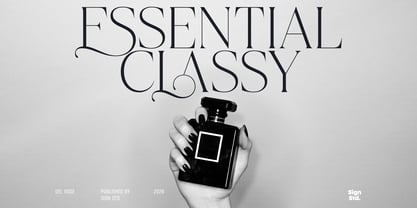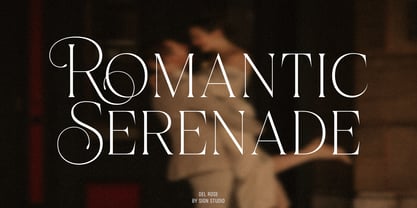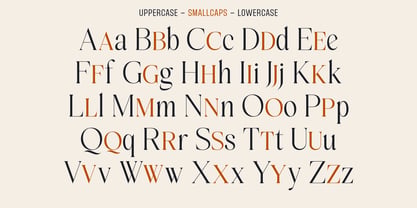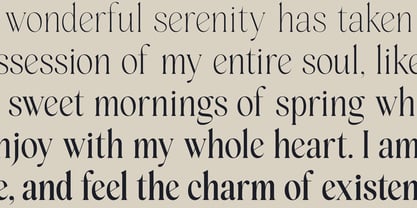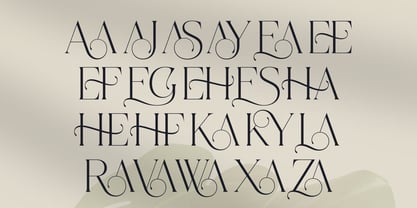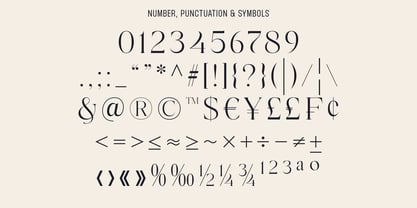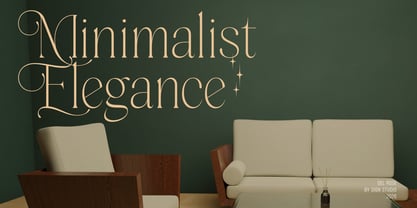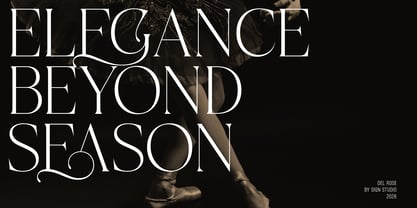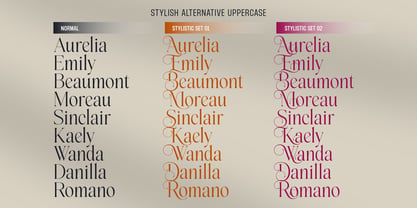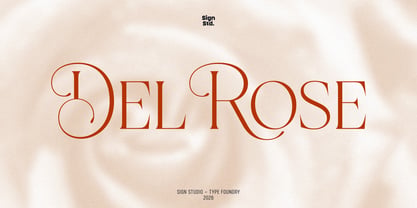
Del Rose
The Del Rose Font Family was designed by Sugi Yanto and published by Sign Studio. Del Rose contains 5 styles and family package options. More about this family
Del Rose is a refined modern serif that blends timeless elegance with expressive discretionary ligatures. Designed with graceful high-contrast letterforms and delicate ornamental details, it brings a sophisticated presence to every composition. The carefully crafted swashes add a distinctive charm while maintaining exceptional readability and balance.
Featuring five weights from Light to Bold, along with Small Caps (smcp & c2sc) and Discretionary Ligatures (dlig), Del Rose offers the versatility needed for luxury branding, editorial design, beauty packaging, wedding invitations, fashion campaigns, and premium logo design. Whether used in striking headlines or refined typography systems, Del Rose delivers a graceful and memorable visual identity.
5 Weights: Light – Regular – Medium – Semi Bold – Bold
Uppercase & Lowercase
Small Caps (smcp)
Caps to Small Caps (c2sc)
Discretionary Ligatures (dlig)
Numerals & Punctuation
Multilingual Support